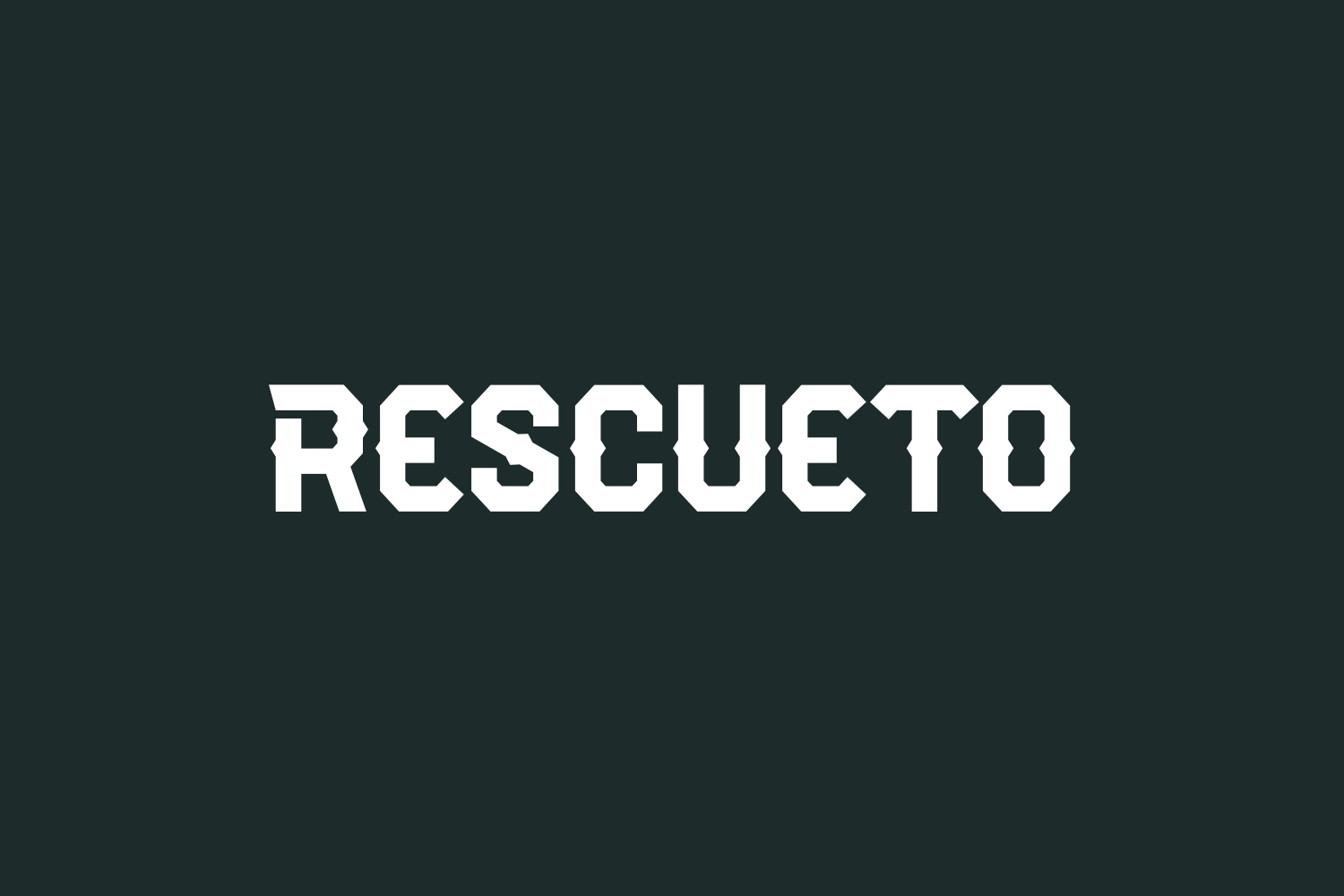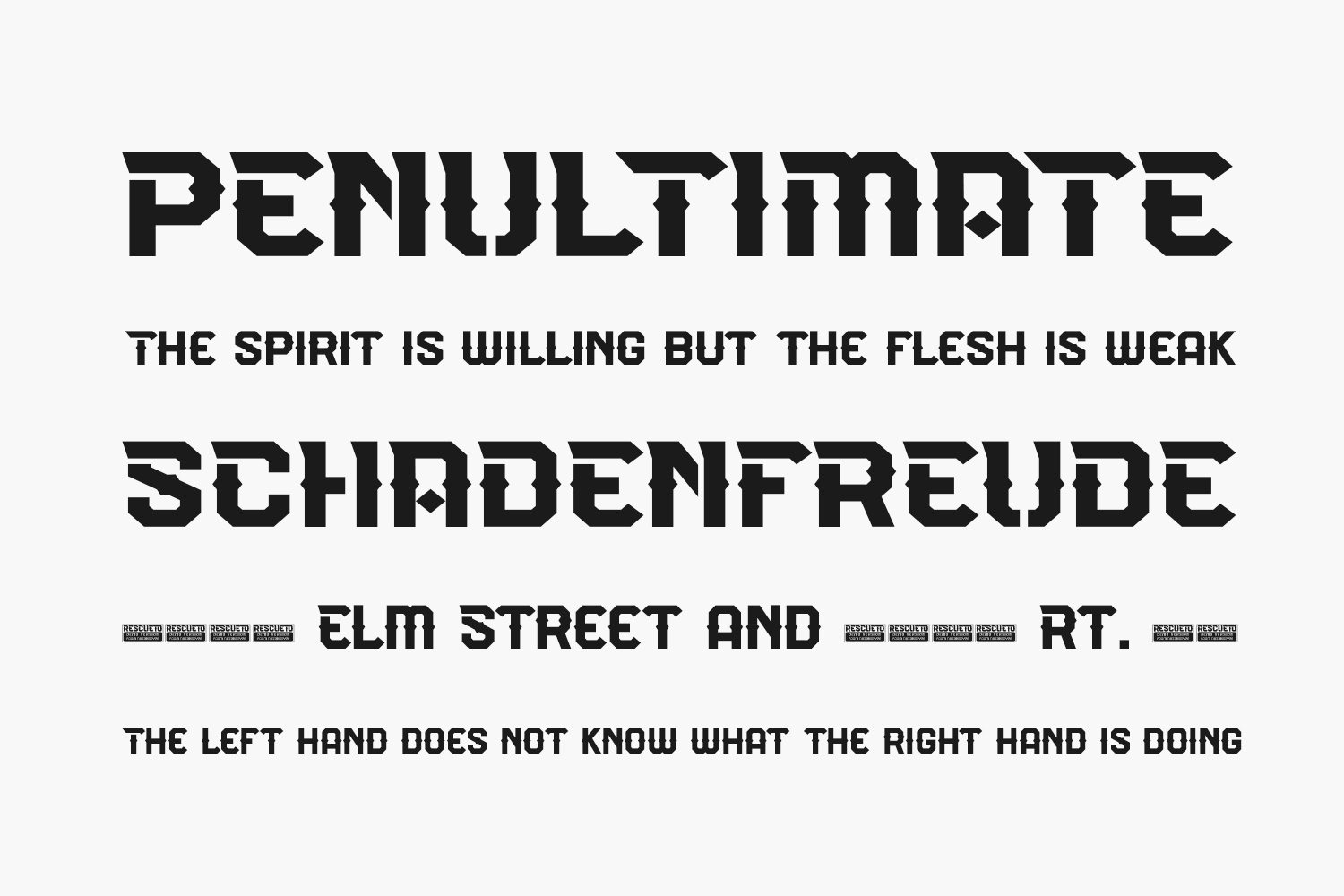
Rescueto Free Font Family is a bold and thick lettered display font. It will look stunning on any poster, flyer or print. Rescueto Free Font Family was designed by Absonstype Studio is a demo and free for personal use only. Please purchase the full version for commercial use.